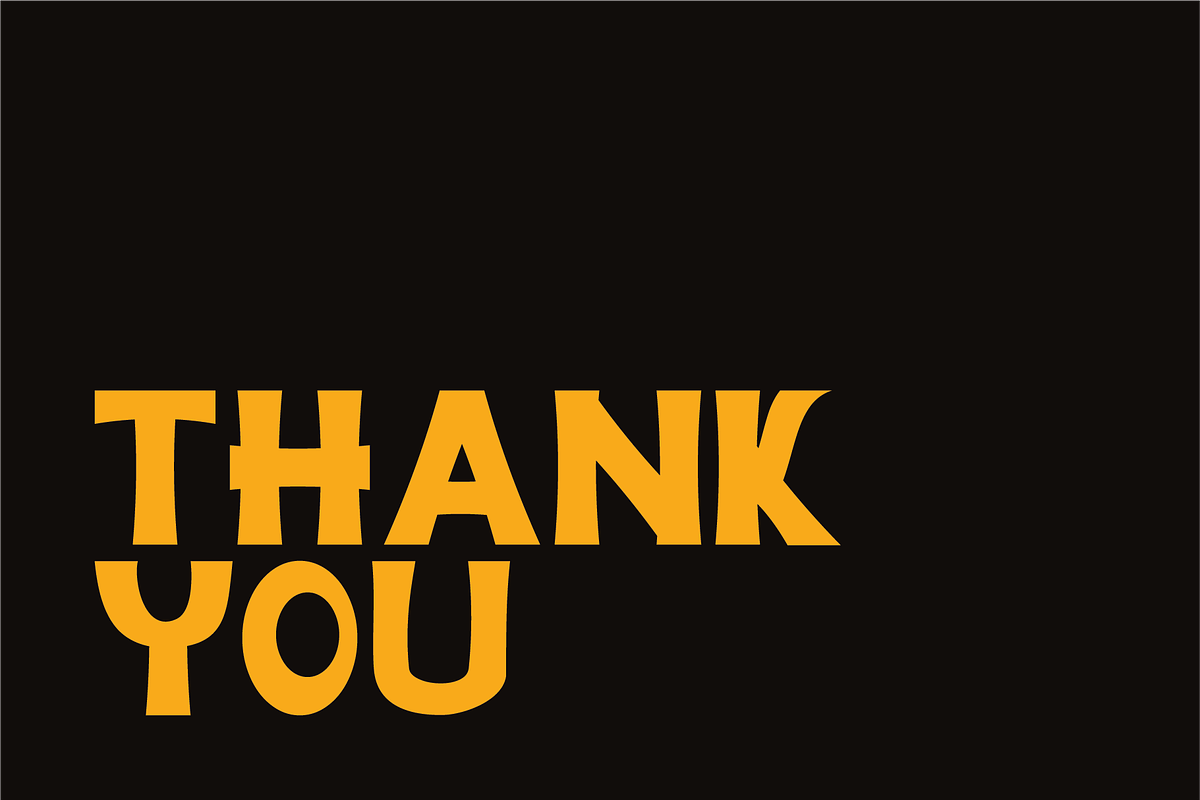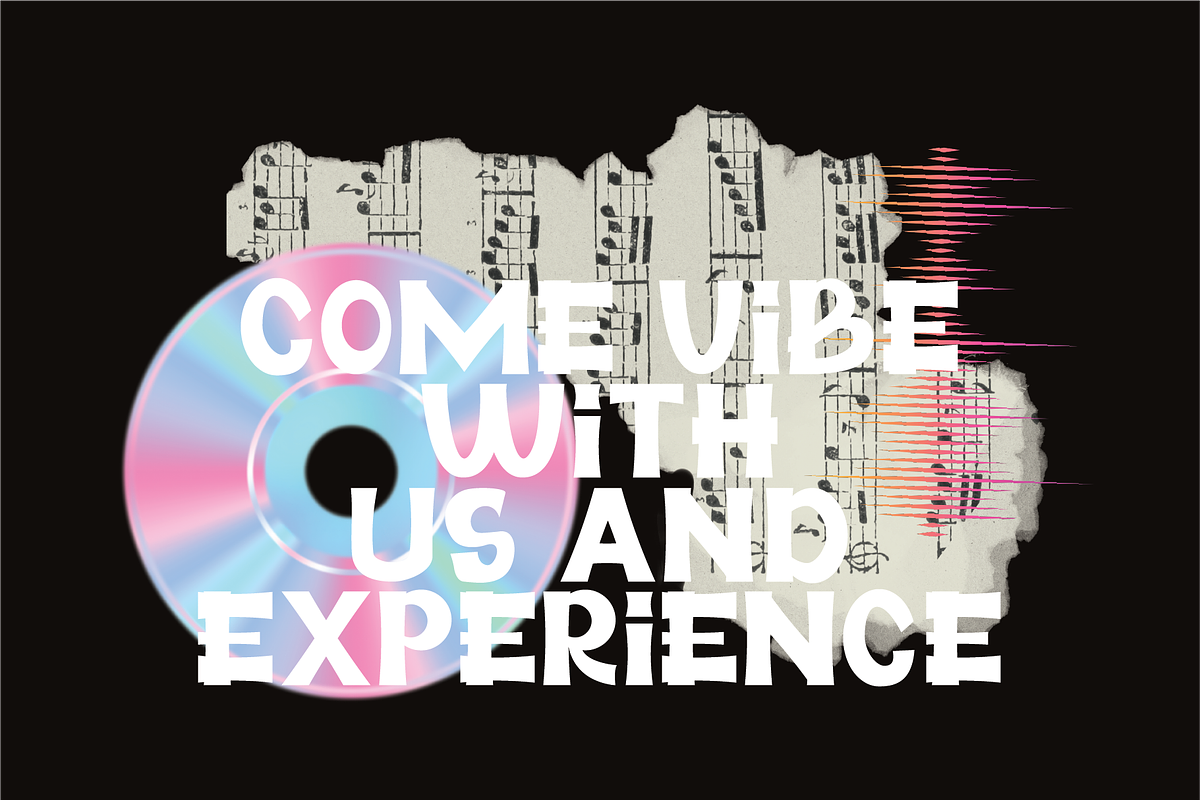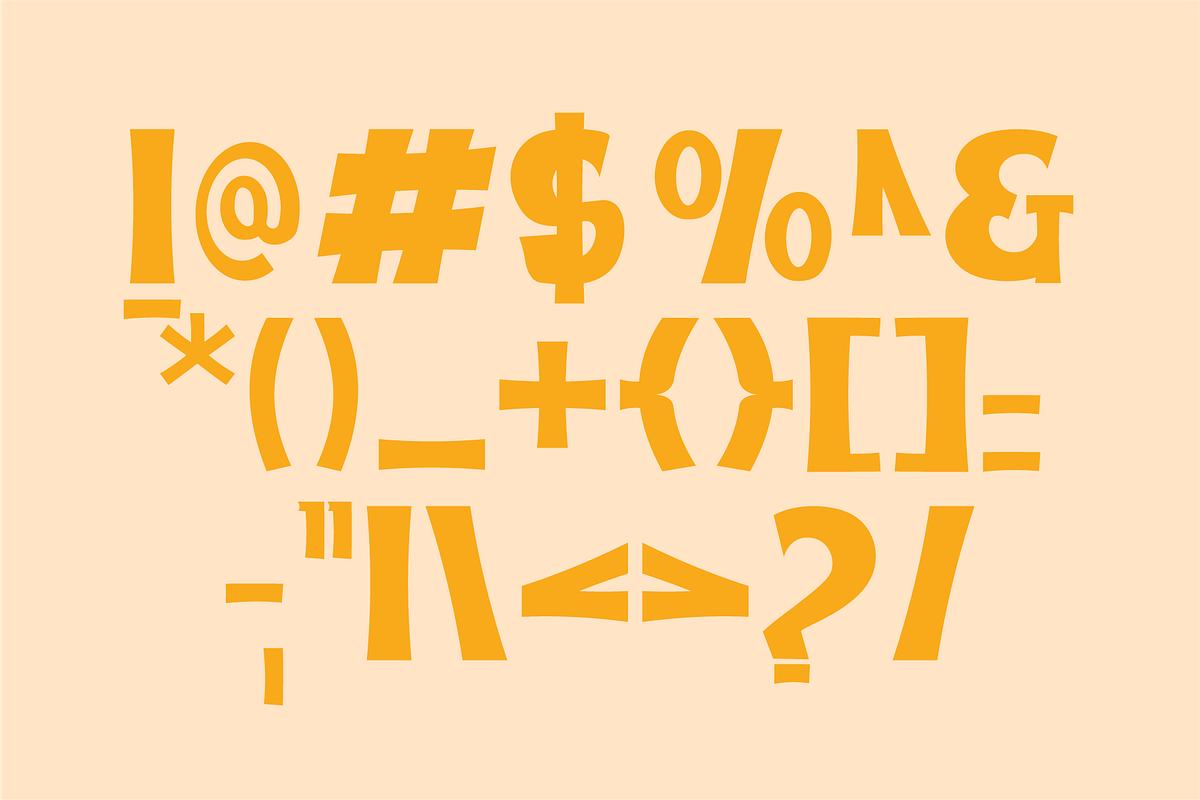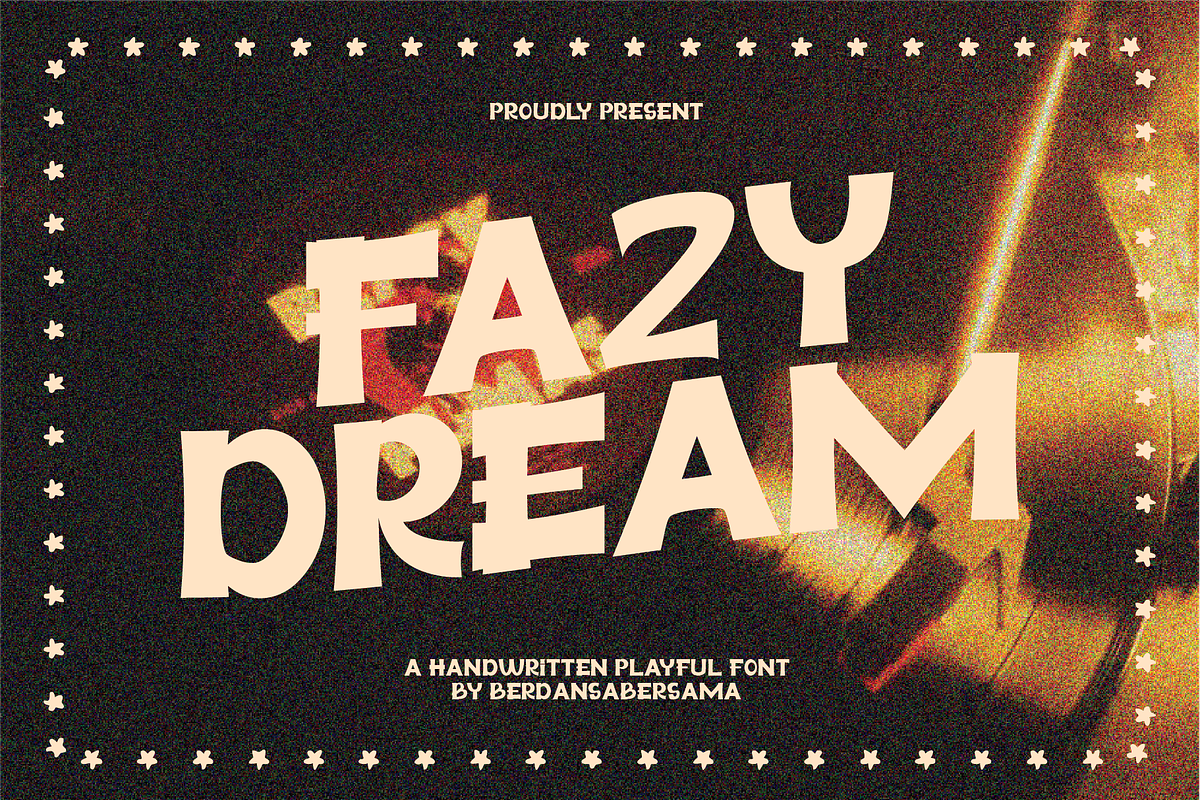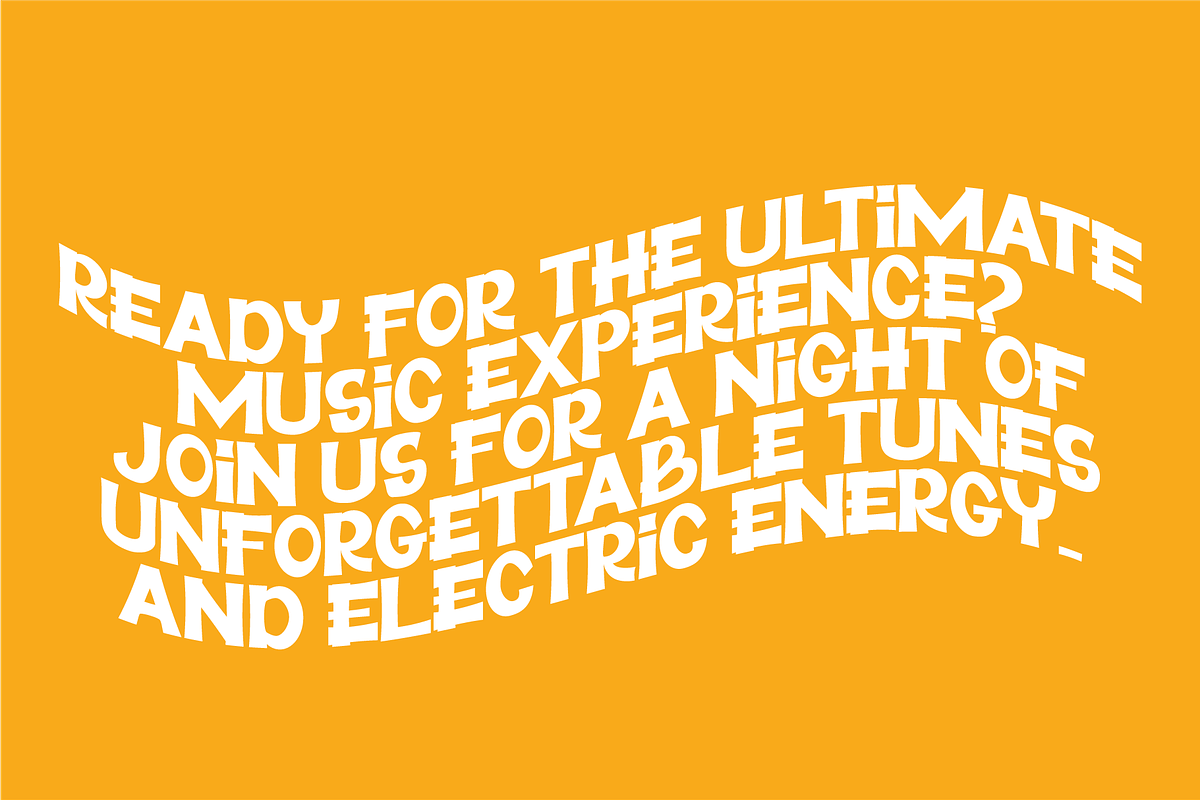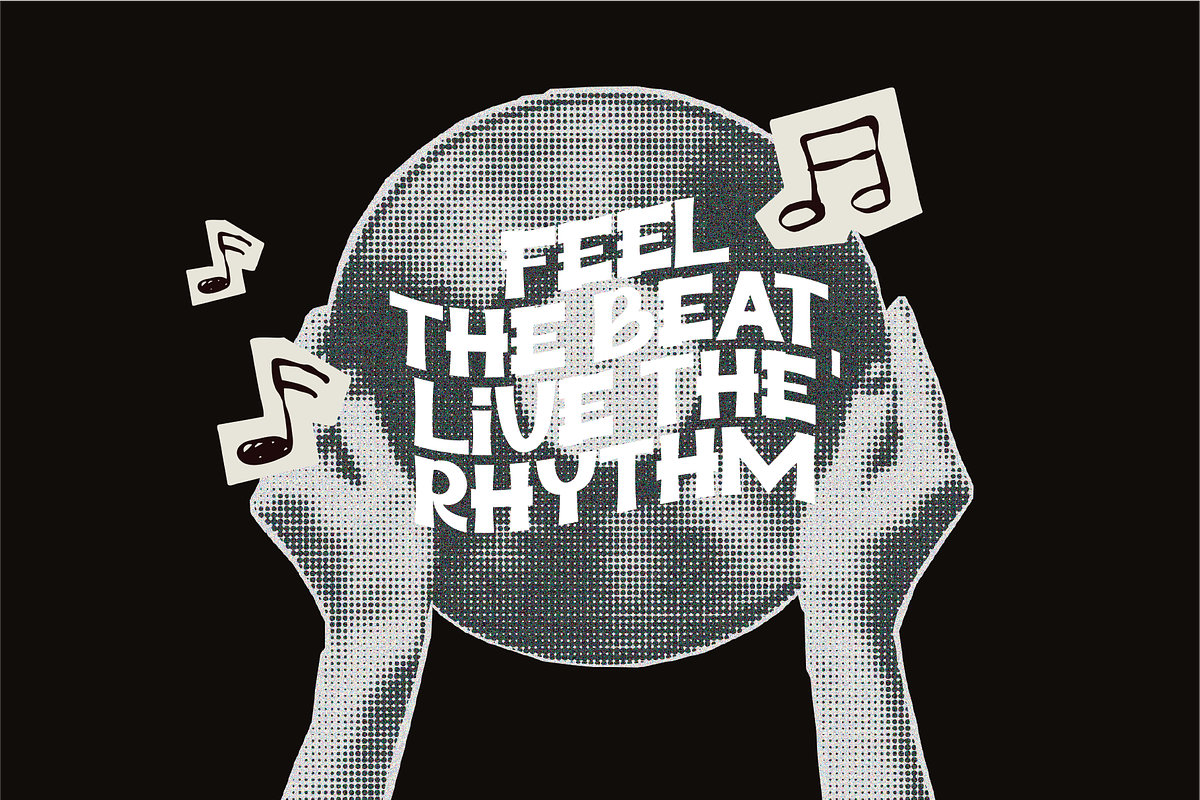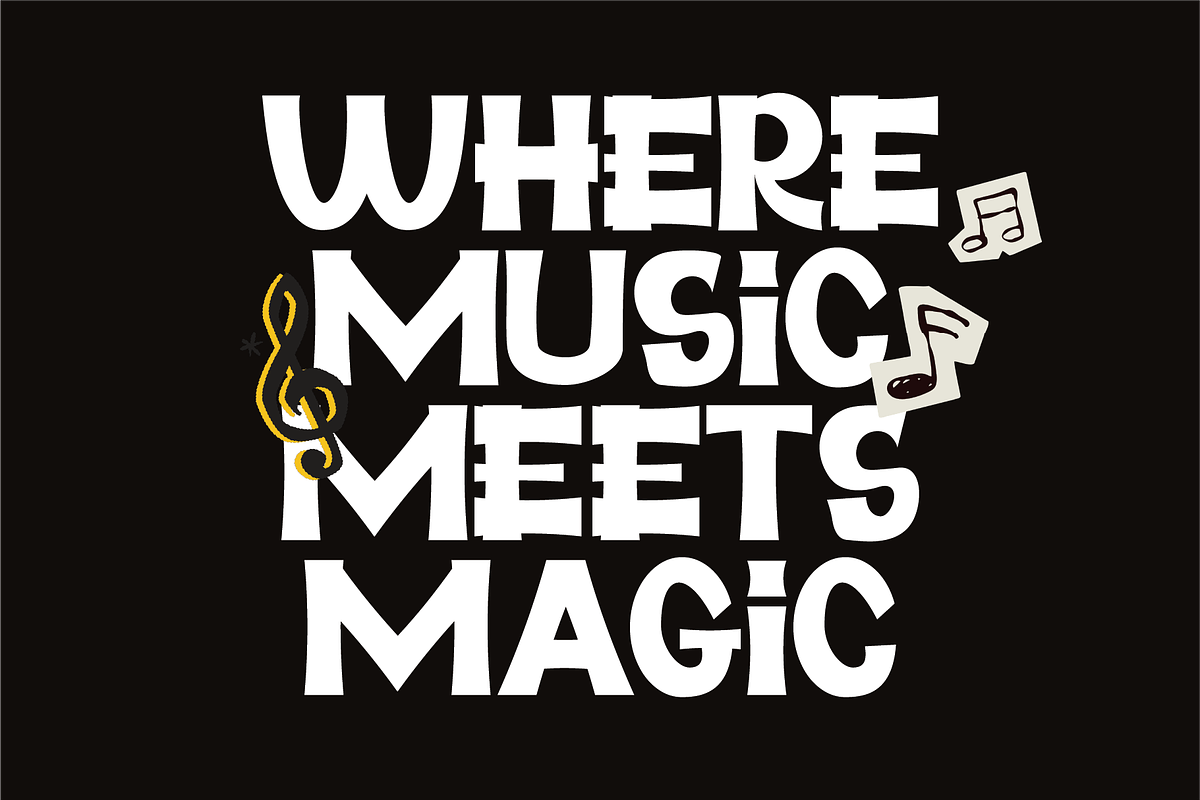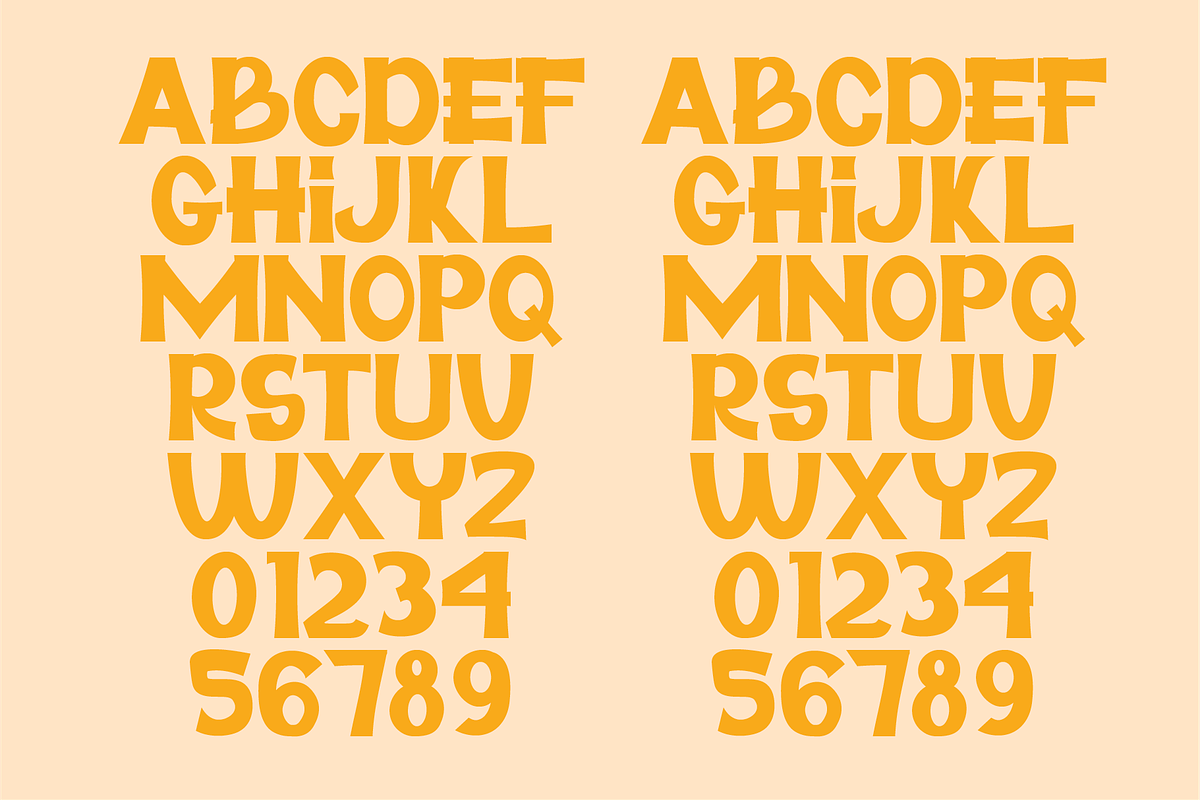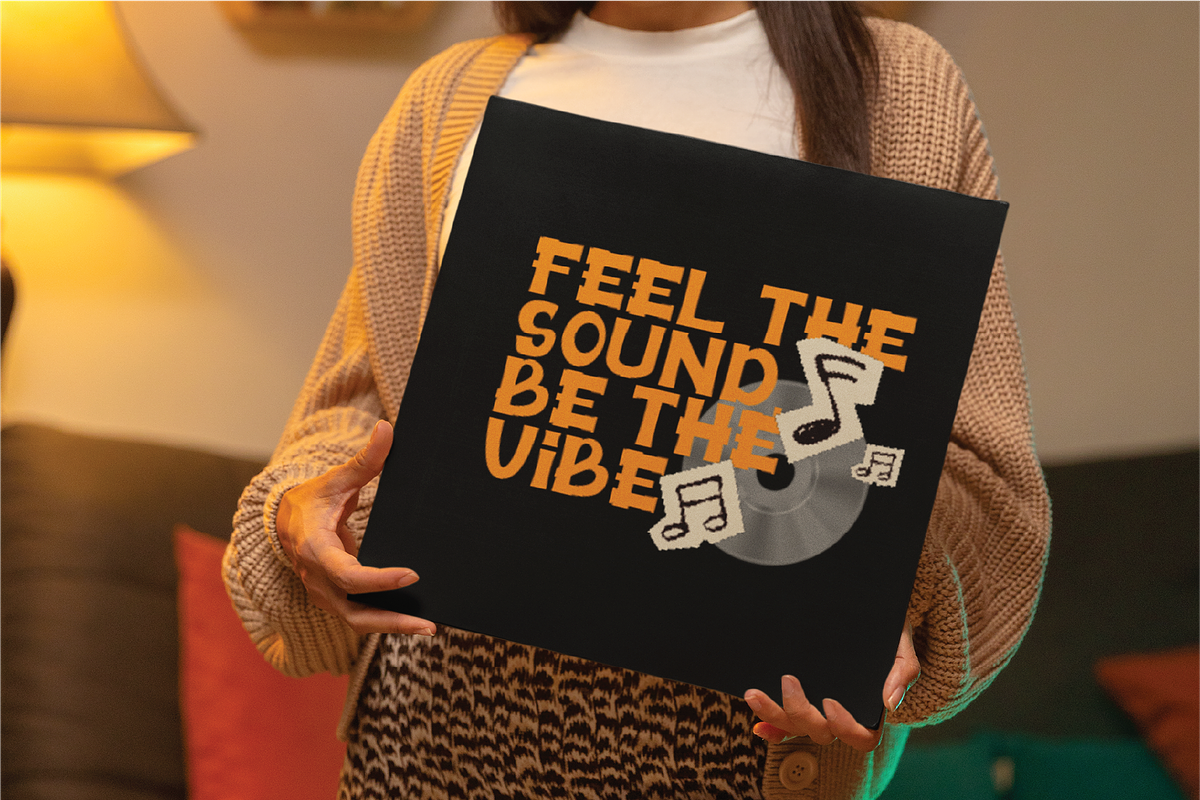
Fazy Dream Handwritten Font
Fazy Dream is a bold display font with a playful, slightly distorted character style that brings a sense of motion, creativity, and youthful energy. Its uneven angles and hand-cut feel give the text a unique artistic personality, making every word look expressive and eye-catching.